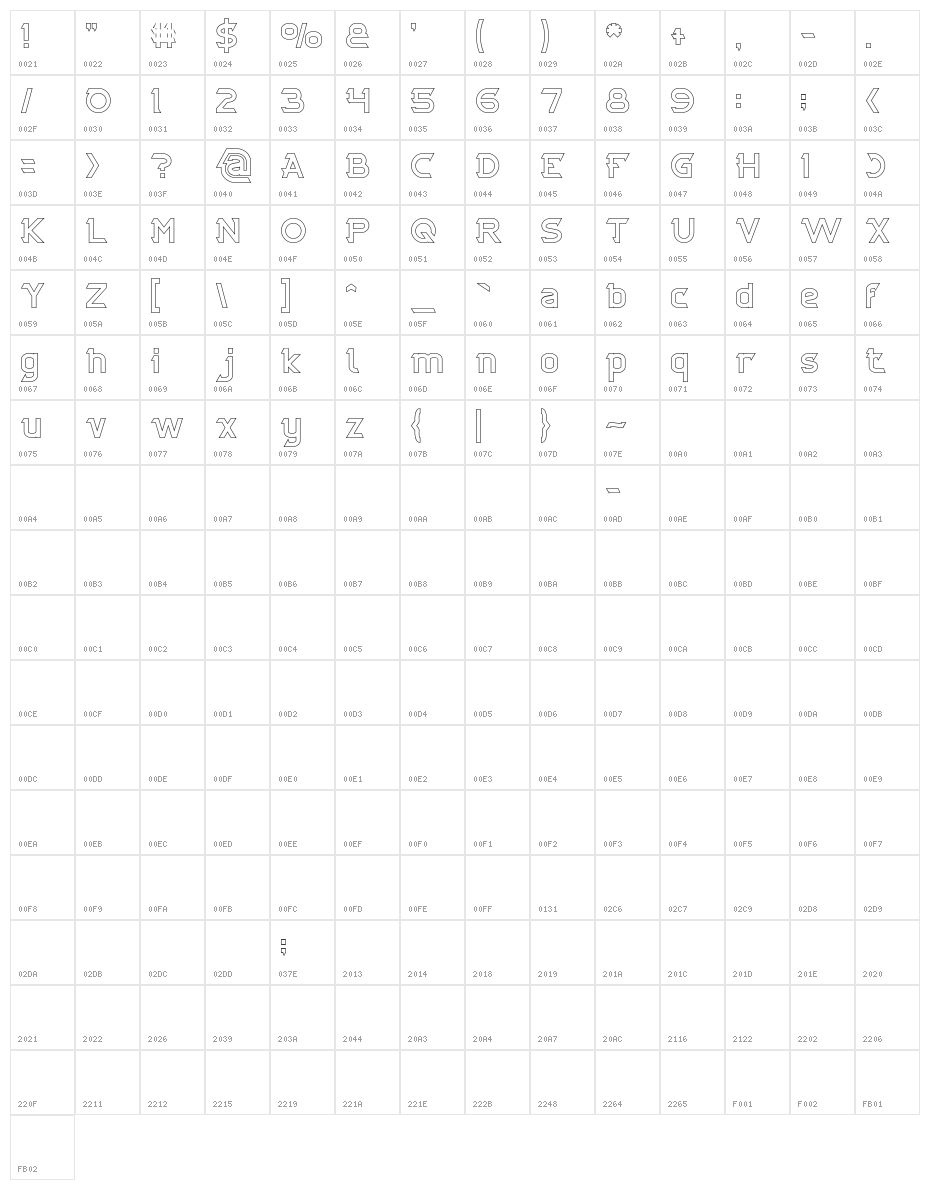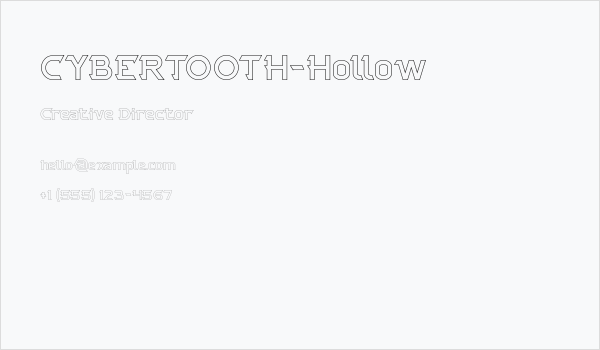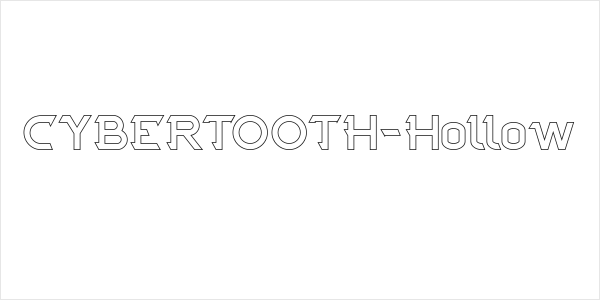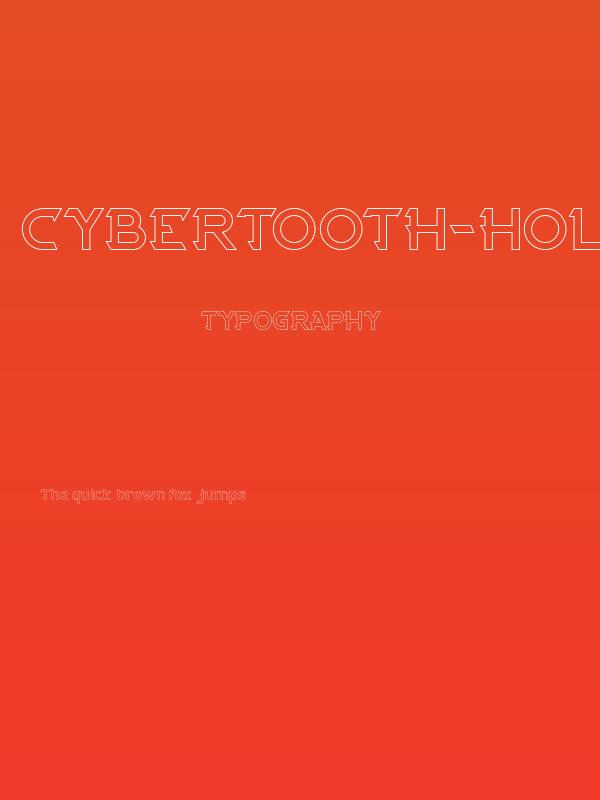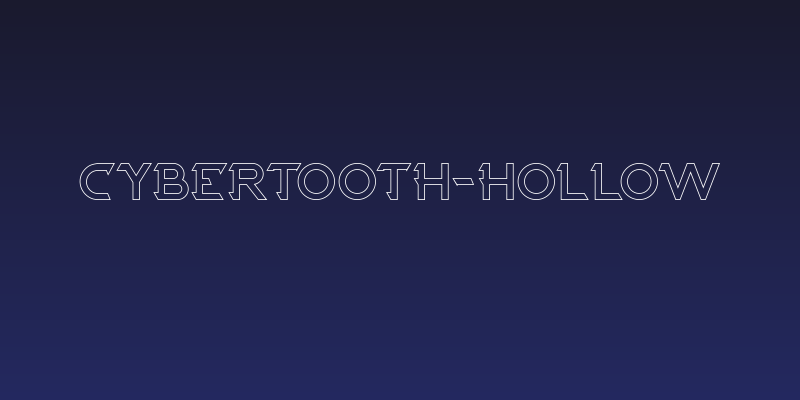
CYBERTOOTH-Hollow Font
CYBERTOOTH-Hollow Description
This font features a hollow, geometric design with sharp, angular edges and a futuristic aesthetic. The uppercase and lowercase letters maintain a consistent style, characterized by their open, outlined forms that create a sense of depth and dimension. The numerals and special characters follow the same design principles, ensuring uniformity across all glyphs. The font's structure is bold and striking, making it ideal for attention-grabbing headlines or logos. Its unique style is reminiscent of digital or sci-fi themes, offering a modern and edgy look.
| Overall Style | Futuristic, Modern |
| Proposed Projects | Ideal for sci-fi themed projects, tech branding, video game titles, or digital art. |